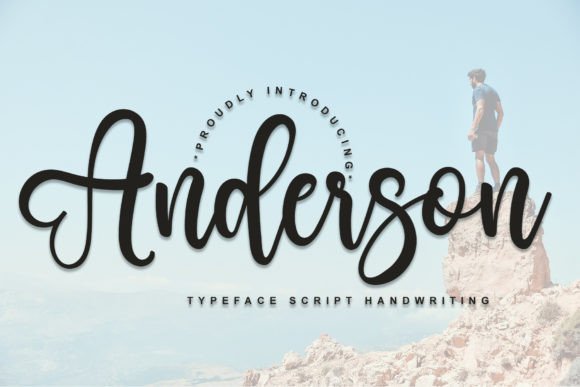
The Anderson Font: A Stylish and Dainty Script for Your Creative Projects
I’ll never forget the time I was working on a branding project for a luxury wedding planner. I had spent hours pouring over design concepts, but something was missing. That’s when I realized I needed the perfect font to tie everything together. After scouring the internet and trying out dozens of fonts, I stumbled upon the Anderson font. It was love at first sight! 💕
The Anderson font is a stylish and dainty script font that has become a staple in my design toolkit. Its elegant lines and beautiful script taste make it perfect for a wide range of projects, from logos and branding to labels, photography, and special events.
An Honest Review of the Anderson Font
- ✨ Elegant and sophisticated design
- 💫 Beautiful script taste that’s perfect for creative projects
- 🎨 Highly versatile and can be used for a wide range of applications
While the Anderson font is an excellent choice for many projects, there are a few things to keep in mind. 🤔 For example, it can be a bit tricky to use in very long blocks of text, as it can start to feel a bit too ornate. ⚠️ Additionally, some of the glyphs and stylistic alternates can be a bit finicky to access, depending on the software you’re using.
The Story Behind the Anderson Font
The Anderson font was designed by a talented typographer who wanted to create a font that was both elegant and accessible. The font’s design is inspired by classic script fonts, but with a modern twist that makes it perfect for creative projects. While the font’s exact backstory is unclear, its beauty and versatility have made it a favorite among designers and crafters.
Q: What is the Anderson font best used for?
A: The Anderson font is perfect for creative projects that need a touch of elegance and sophistication, such as logos, branding, labels, photography, and special events.
Q: Is the Anderson font easy to read?
A: Yes, the Anderson font is highly legible, even at small sizes. Its elegant lines and classic design make it easy to read, even for long blocks of text.